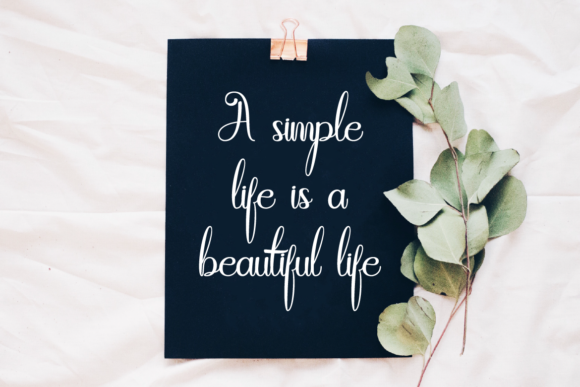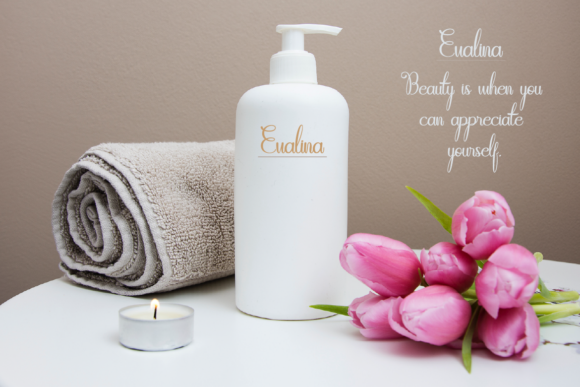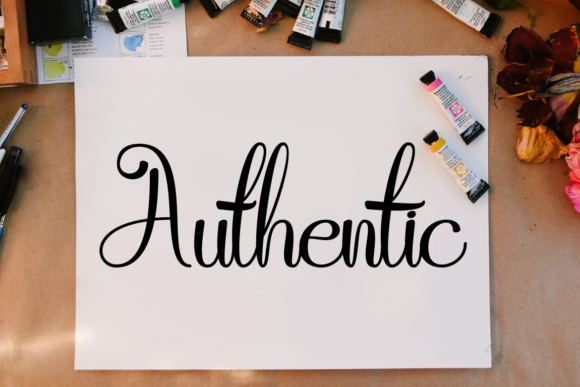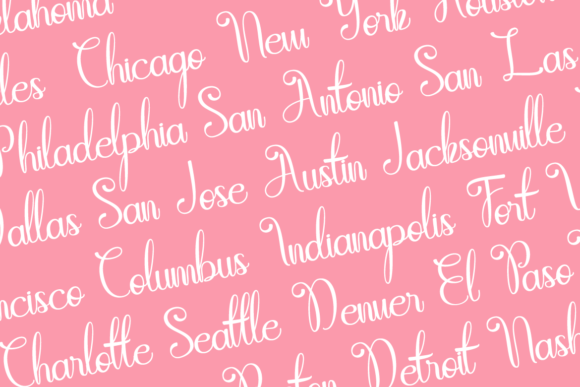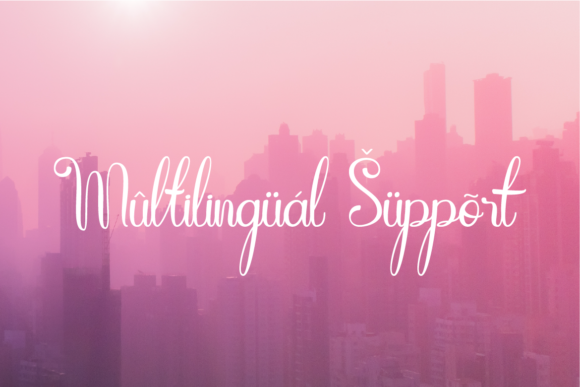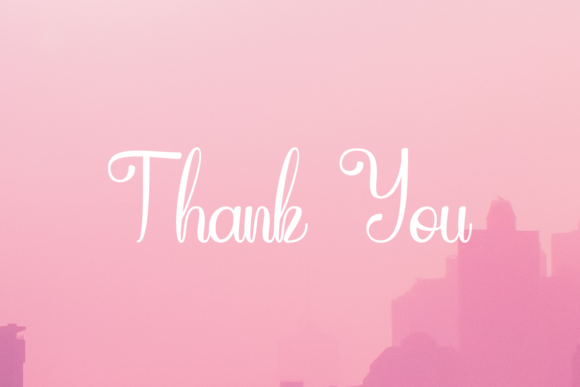
Athernal Font: Elevate Your Designs with a Touch of Romance and Luxury
In the world of typography, fonts play a crucial role in conveying the tone and aesthetic of a design. For those seeking to add a touch of romance, delicacy, and luxury to their projects, the Athernal Font is an exceptional choice. This exquisite script font is designed to bring a unique feel to any design idea, making it a perfect fit for crafters, designers, and anyone looking to elevate their creative work.
The Essence of Athernal Font
Athernal is a romantic and delicate script that exudes a sense of luxury and sophistication. Its elegant strokes and beautiful letterforms are crafted to evoke a feeling of refinement and poise. Whether you’re working on a branding project, packaging design, or a personal craft, Athernal Font is sure to add a touch of class and distinction.
Key Features of Athernal Font
- Romantic and Delicate: Athernal’s script is characterized by its flowing, cursive style that conveys a sense of romance and delicacy.
- Luxurious Feel: The font’s elegant design and refined letterforms give it a luxurious feel that’s perfect for high-end designs.
- Unique and Distinctive: Athernal’s unique style ensures that your designs stand out from the crowd, making it ideal for those looking to create something truly special.
- Versatile: Suitable for a wide range of design projects, from stationery and packaging to digital media and advertising.
Uses of Athernal Font
Athernal Font’s versatility makes it suitable for various design applications. Here are some of the ways you can use this beautiful script font:
- Branding and Logo Design: Create a lasting impression with a luxurious and elegant logo that reflects your brand’s personality.
- Stationery and Invitations: Add a touch of romance and sophistication to your wedding invitations, greeting cards, and personal stationery.
- Packaging Design: Elevate your product packaging with a font that exudes luxury and refinement.
- Digital Media: Use Athernal Font in your social media graphics, blog headers, and website designs to create a cohesive and elegant visual identity.
Tips for Using Athernal Font Effectively
To get the most out of Athernal Font, consider the following tips:
- Pair with Contrasting Fonts: Combine Athernal with a clean, sans-serif font to create a beautiful contrast that enhances your design.
- Experiment with Colors: Athernal Font looks stunning in metallic colors, pastels, and rich jewel tones. Don’t be afraid to experiment and find the perfect color scheme for your design.
- Pay Attention to Spacing: Ensure that your text is easy to read by adjusting the spacing between letters and lines.
Athernal Font is a beautiful and luxurious script font that’s perfect for designers and crafters looking to add a touch of romance and sophistication to their work. With its elegant design, unique feel, and versatility, Athernal is sure to become a staple in your font collection. Whether you’re working on a personal project or a client’s design, Athernal Font is an excellent choice for creating stunning and memorable designs.